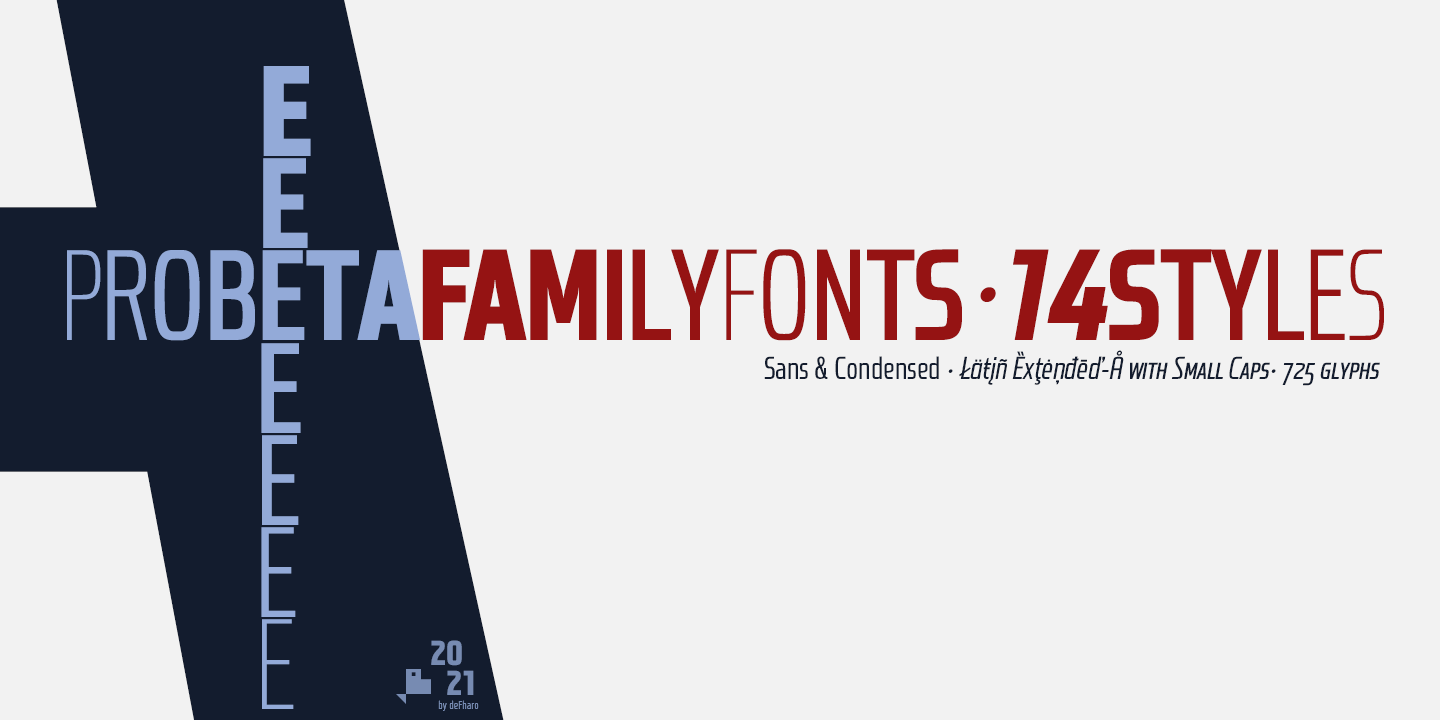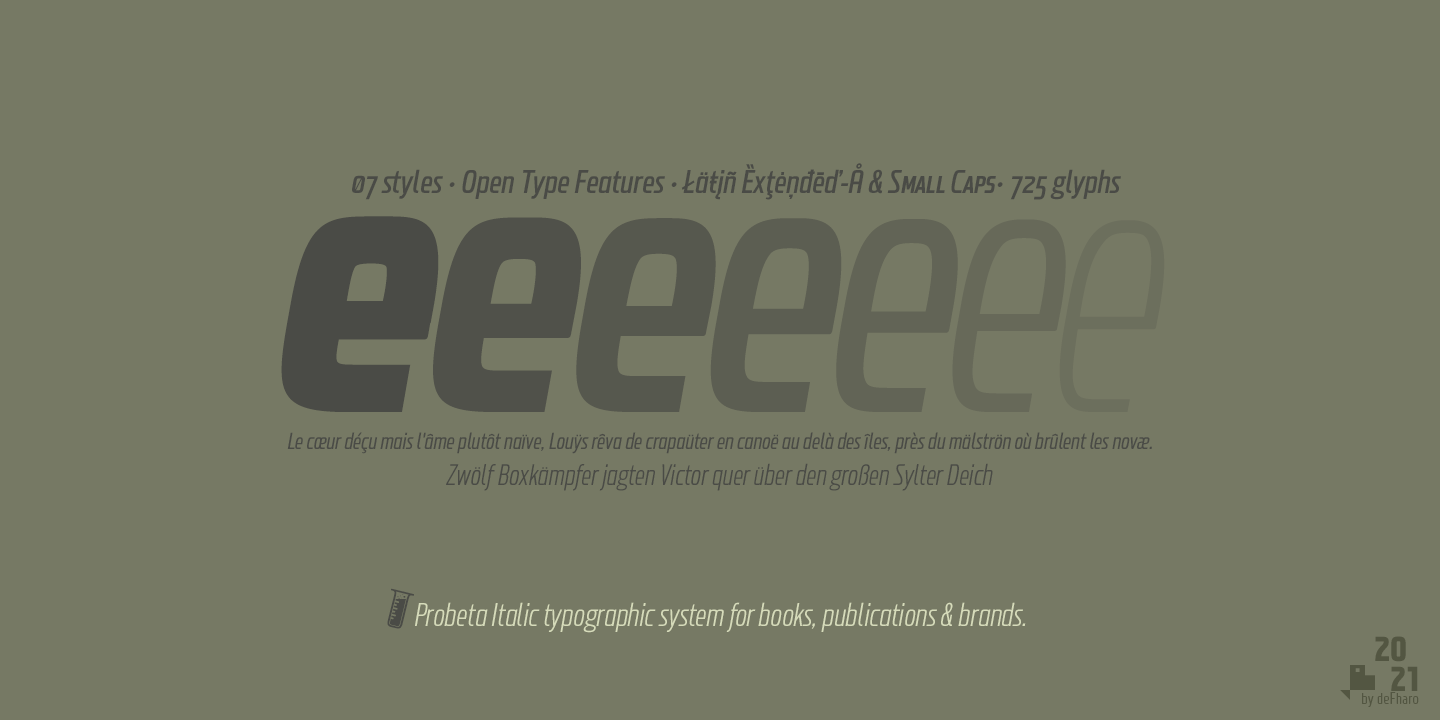
Probeta Sans Fonts is an exclusive Sans Serif font family, with condensed proportion. The font family consists of 7 weights (Extra Light, Light, Regular, Medium, Semi Bold, Bold and Extra Bold) and the italic versions, with their own personality.
Probeta Sans Fonts with maximum readability, includes Small Caps, perfect for use in graphic design, media, advertising and web. 2021